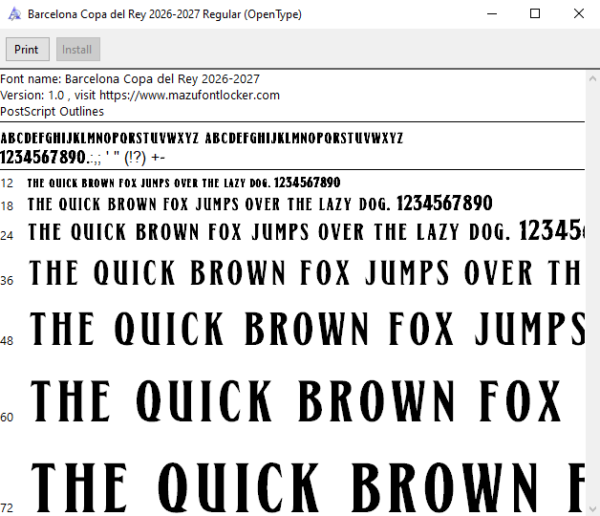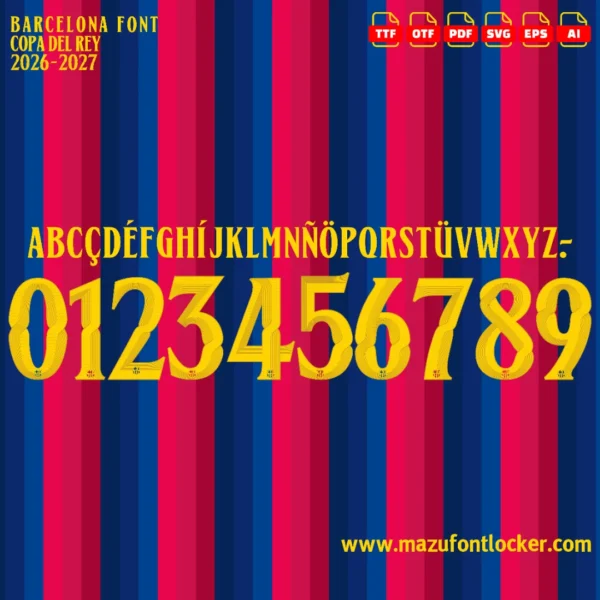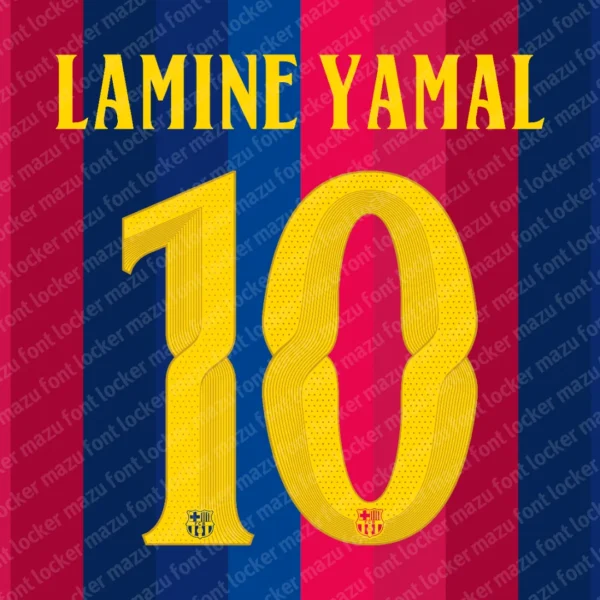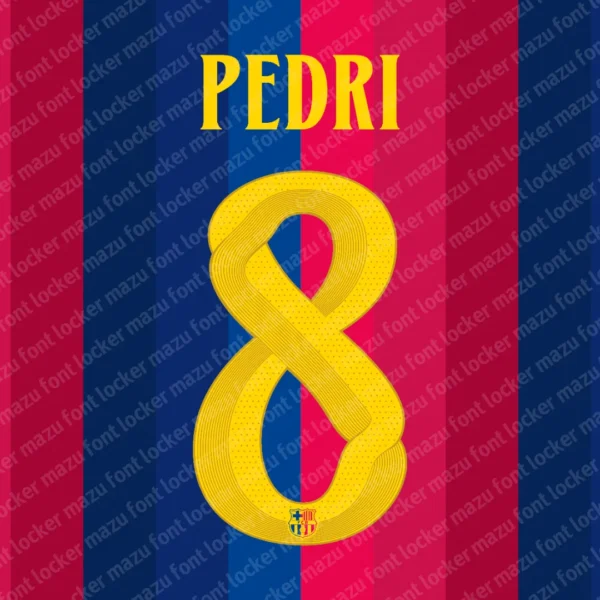
Barcelona Copa del Rey 2026-2027 Font Vector – Stunning Blaugrana Trophy Typeface
This premium font faithfully recreates the official Copa del Rey match lettering worn by FC Barcelona during the 2026-2027 season — delivering authentic Camp Nou heritage, iconic Catalan football tradition, historic domestic cup excellence, fearless attacking football, world-class technical brilliance, unwavering championship ambition, unforgettable knockout nights, and the unmistakable blue-and-garnet identity that continues to define one of football’s most successful and admired clubs.
Barcelona Copa del Rey 2026-2027 Font Vector – Stunning Modernista Cup Typeface
The Barcelona Copa del Rey 2026-2027 Font Vector is a premium typeface that faithfully recreates the exclusive FC Barcelona Modernista match lettering worn during the 2026-2027 Copa del Rey campaign. This high-quality vector font kit captures the artistic typography inspired by Catalan Modernisme, featuring elegant curves, ornamental details, and distinctive linework that celebrate Barcelona’s rich architectural and cultural heritage. Unlike the standard La Liga font, this exclusive club typeface is reserved for Barcelona’s domestic cup and European competitions.
Designed for professional designers, football enthusiasts, jersey collectors, and passionate Barça supporters, the Barcelona Copa del Rey 2026-2027 Font Vector delivers exceptional authenticity for creating realistic jersey mockups, football merchandise, social media graphics, match posters, and custom fan artwork. It perfectly complements Barcelona’s iconic Blaugrana identity while showcasing the club’s unique Modernista-inspired visual language.
This font stands out thanks to its precise vector construction and faithful recreation of Barcelona’s exclusive cup lettering. Every character has been carefully recreated to match the official names and numbers worn during the 2026-2027 Copa del Rey campaign. Whether you’re creating authentic football kit templates or producing eye-catching football content, the Barcelona Copa del Rey 2026-2027 Font Vector delivers an unmistakably premium finish.
The lettering featured in the Barcelona Copa del Rey 2026-2027 Font Vector embraces the artistic principles of Catalan Modernisme with flowing contours, decorative internal details, elegant proportions, and handcrafted aesthetics. The result is one of the most unique football shirt typefaces ever introduced by FC Barcelona.
The numerals feature organic curves, decorative interior linework, and balanced proportions while maintaining excellent readability on the pitch. Built entirely as scalable vectors, every number remains perfectly sharp for jersey customization, digital artwork, posters, and large-format printing.
• Complete uppercase A–Z alphabet and numbers 0–9 in authentic Barcelona Copa del Rey 2026-2027 style
• Includes authentic crest glyph placement beneath player numbers
Barcelona Copa del Rey 2026-2027 Season
The 2026-2027 season introduces the exclusive FC Barcelona Modernista typeface, designed to strengthen the club’s connection with the city of Barcelona and Catalonia’s artistic heritage. Inspired by the famous Modernisme movement, the new lettering features elegant shapes, decorative detailing, and contemporary craftsmanship that distinguish it from traditional football typography. Barcelona wears this exclusive font during the Copa del Rey, UEFA Champions League, and Supercopa de España, while La Liga regulations require the club to use the league’s standardized font for domestic league matches. This makes the Modernista typeface a unique and highly collectible design for cup competitions. :contentReference[oaicite:0]{index=0}
As Barcelona competes for domestic and European honours throughout the 2026-2027 campaign, the Modernista font becomes a visual symbol of the club’s commitment to innovation, creativity, and Catalan identity.